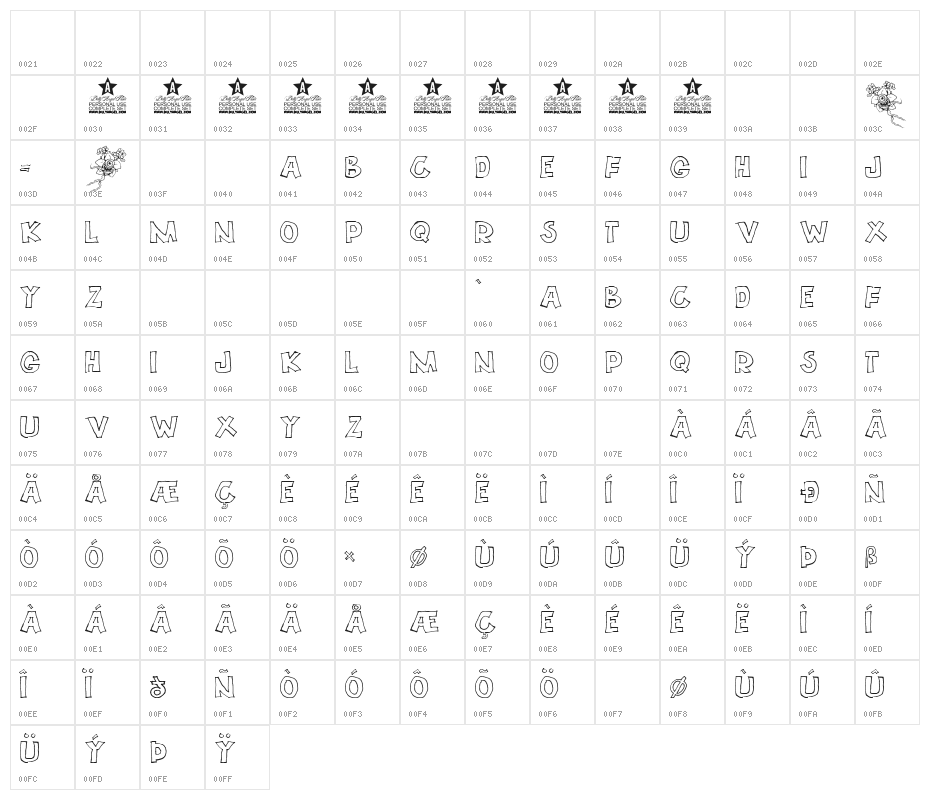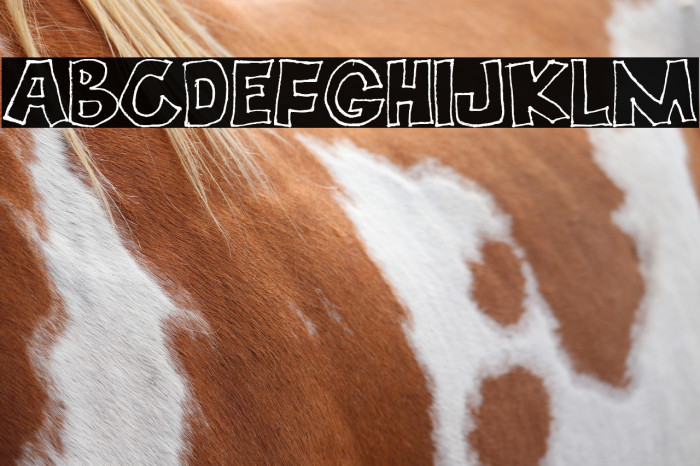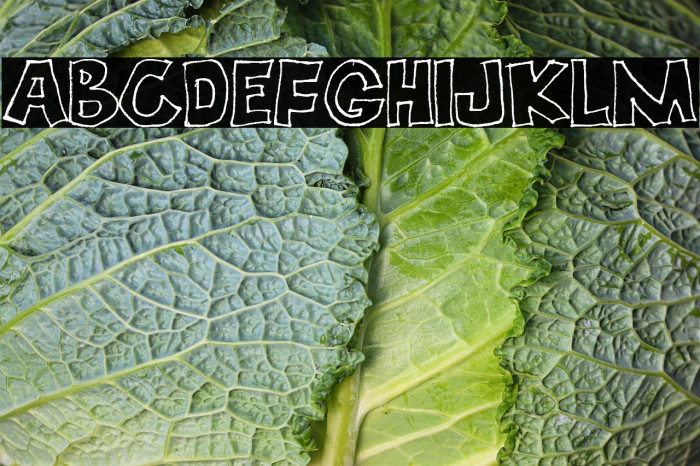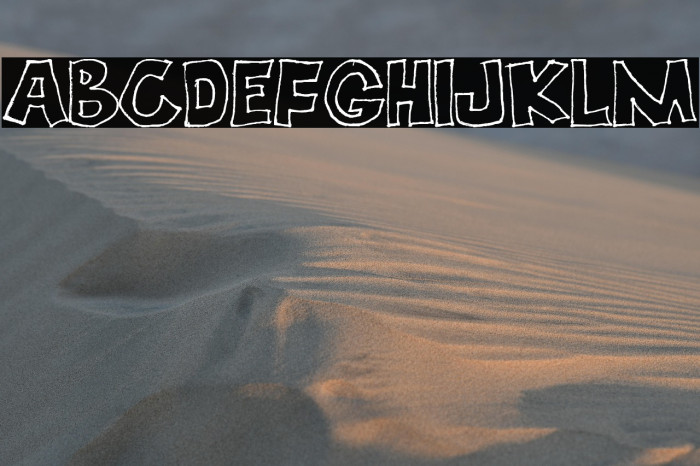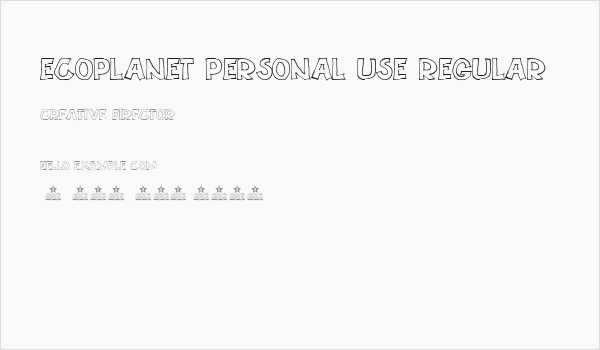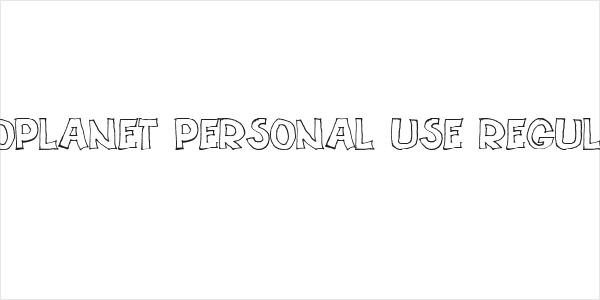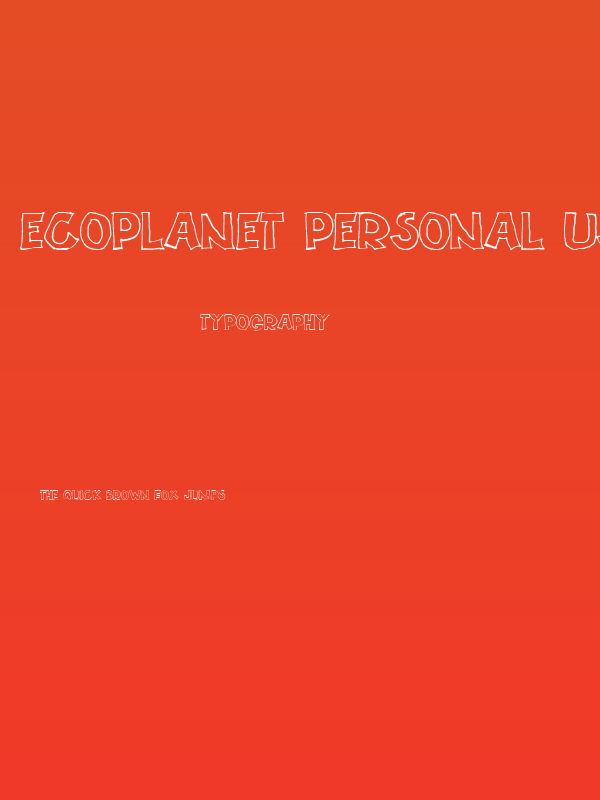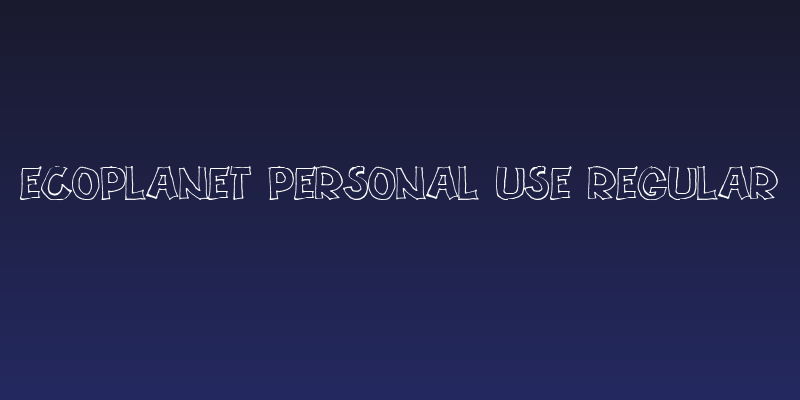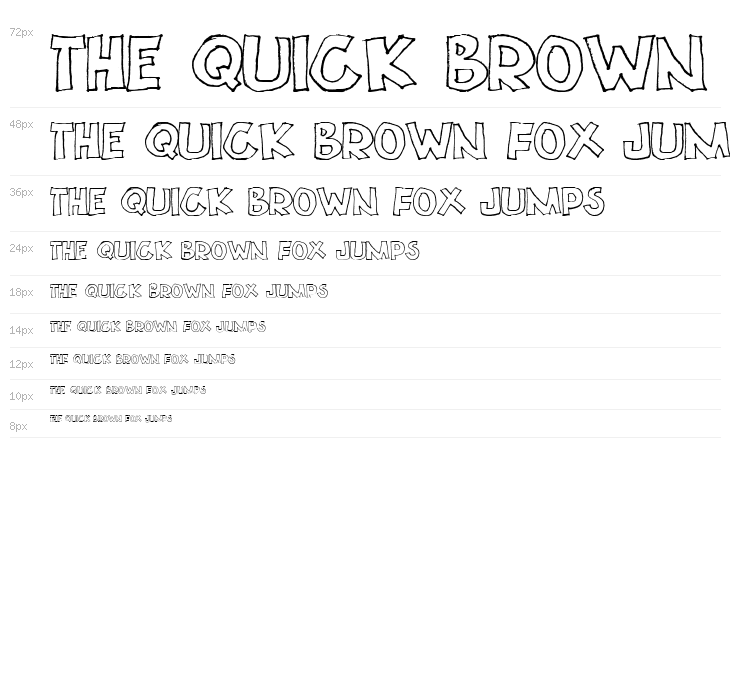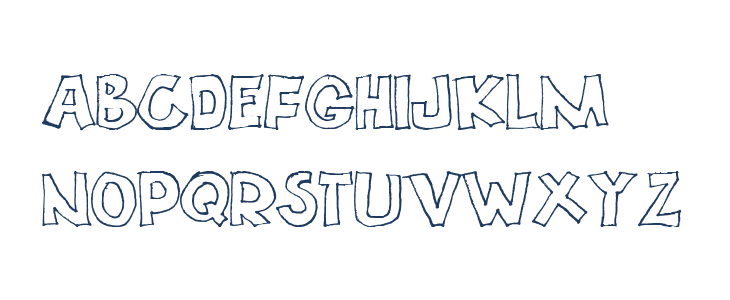
ECOPLANET PERSONAL USE Regular Font
This font features a playful and hand-drawn style, characterized by its bold and slightly irregular letterforms. The uppercase letters have a cartoonish, whimsical appearance, with each character exhibiting unique quirks and variations. The lines are thick and uneven, giving the font a lively and dynamic feel. The characters are outlined, adding to the sketch-like quality of the design. This font is ideal for projects that require a fun and informal touch, such as children's books, comic strips, or playful branding. The overall style is decorative and eye-catching, making it suitable for headlines and titles where a bold statement is desired.
Proposed ProjectsChildren's books, comic strips, playful branding, headlines, and titles.